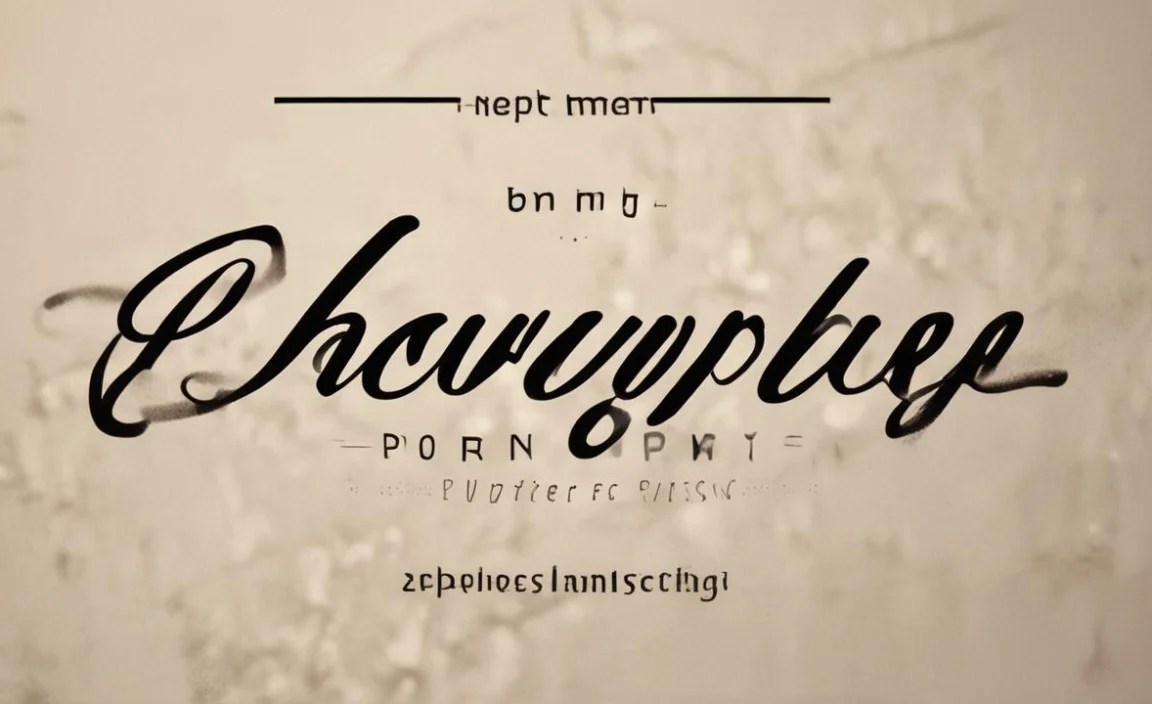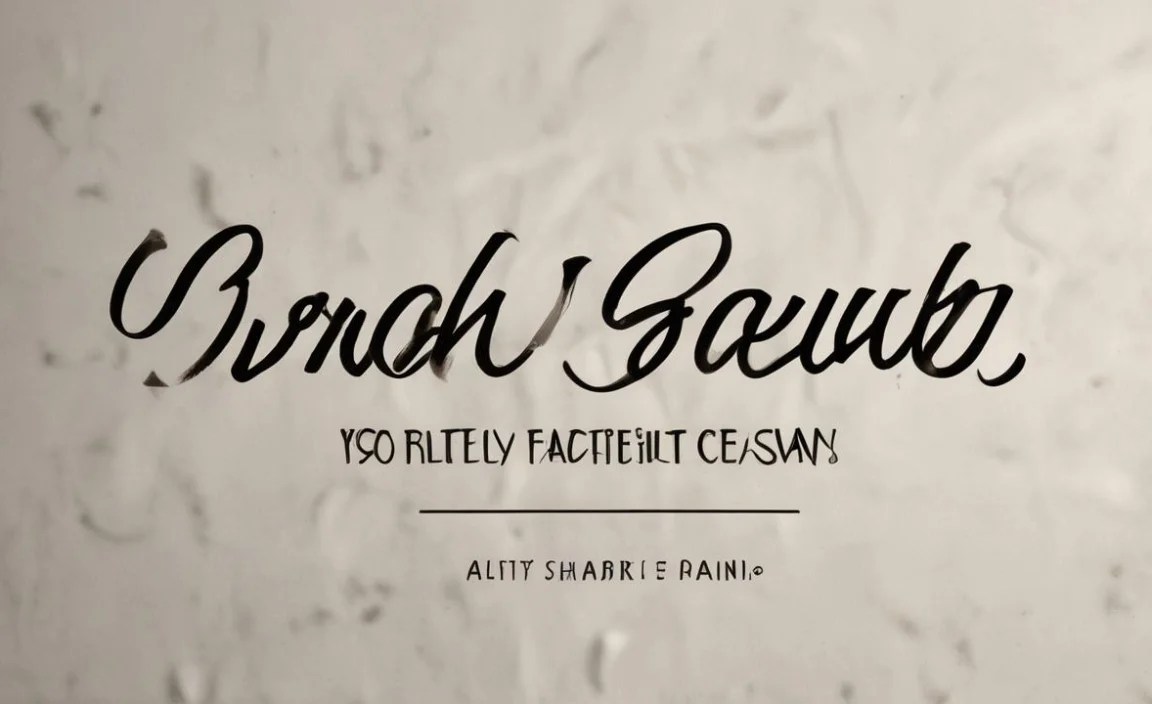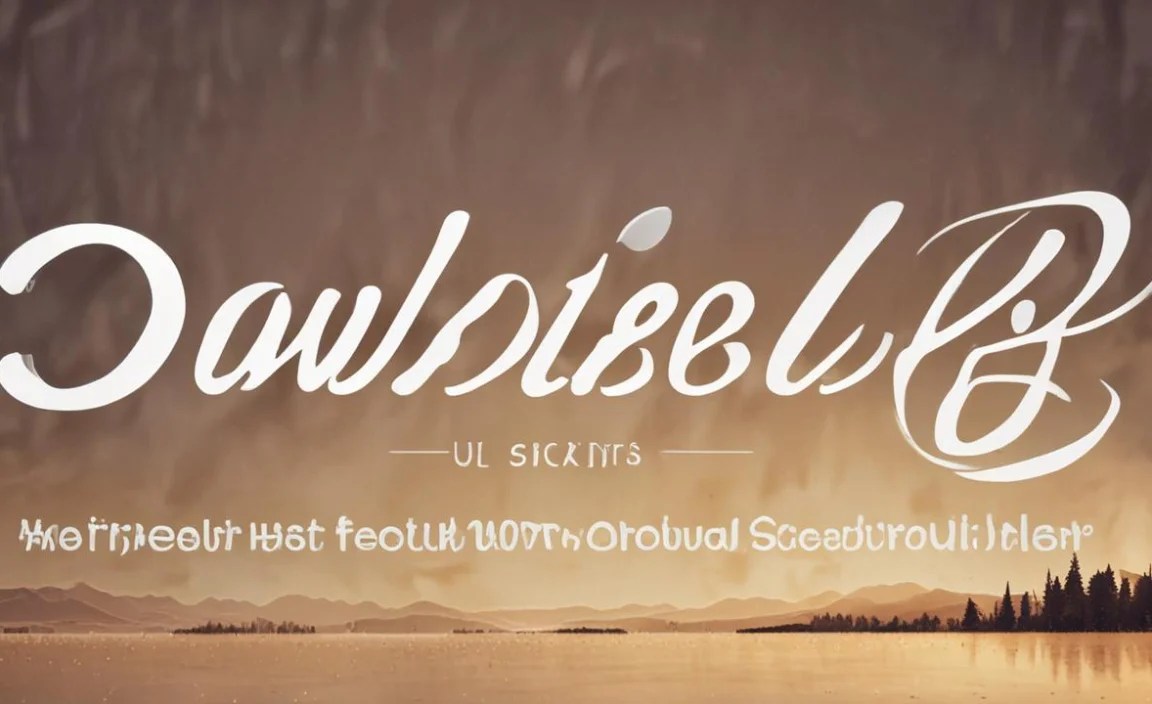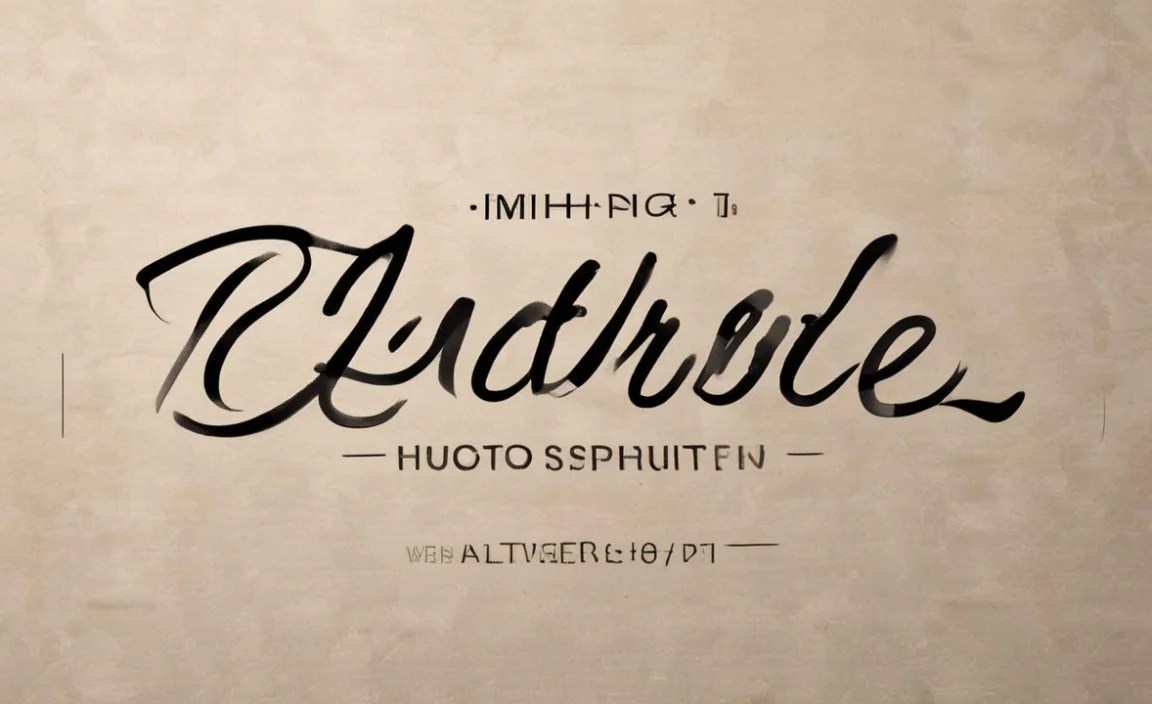
Brush Script Font exudes a lively, brush-written charm with its spontaneous and informal style. Designed by Robert E. Smith in 1942 and published by Linotype, this font captures a handwritten essence perfect for casual and confident display work. Its flowing, connected lowercase letters add a unique, peppy character, making it ideal for designs that need an informal touch, such as posters and signage.
Where Brush Script Font Is In Use
The energetic, handwritten style of Brush Script Font makes it popular for a variety of design contexts that benefit from a lively, casual feel. Notable uses include:
- Logos
- Greetings Cards
- Signage
- Informal posters
- Casual event invitations
- Cosmetics Design
- Video Games
- Advertisements
- Branding materials
Brush Script Font Alternative
Brush Script Font FAQs
1. Why Is The Brush Script Font Popular In Casual Designs?
Brush Script Font’s spontaneous and informal brush-written style adds a peppy, confident character to designs, making it perfect for projects requiring a casual, handwritten look.
2. What Trends Are Shaping The Future Of Brush Script Font?
The future of Brush Script Font lies in its use for modern, casual branding and digital media, where its informal style continues to add a personal touch to creative projects.
3. When Did Brush Script Font Become Popular?
Brush Script Font gained popularity in the mid-20th century with the rise of informal, handwritten typography in advertising and display work, blending tradition with a modern flair.
4. What Free Font Resembles Brush Script Font?
Fonts like “Pacifico” and “Great Vibes” are considered close free alternatives for those seeking a similar brush-written, lively style.
5. How Many Fonts Are In The Brush Script Font Family?
The Brush Script Font family includes several styles, such as Regular, Bold, and Italic, offering a range of weights and variations for diverse design needs.